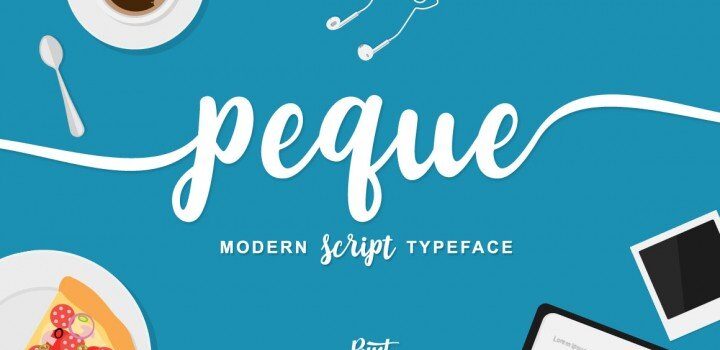
peque
Peque Font - Featured Image
Peque Font – Free Download Introduction to Peque Font Peque is a fresh, modern script font designed by hand by the PointLab foundry. 📸 Preview Gallery 6 images 📌 Product Name Peque Font 👤 Author PointLab 📂 Category Explore ⬇️